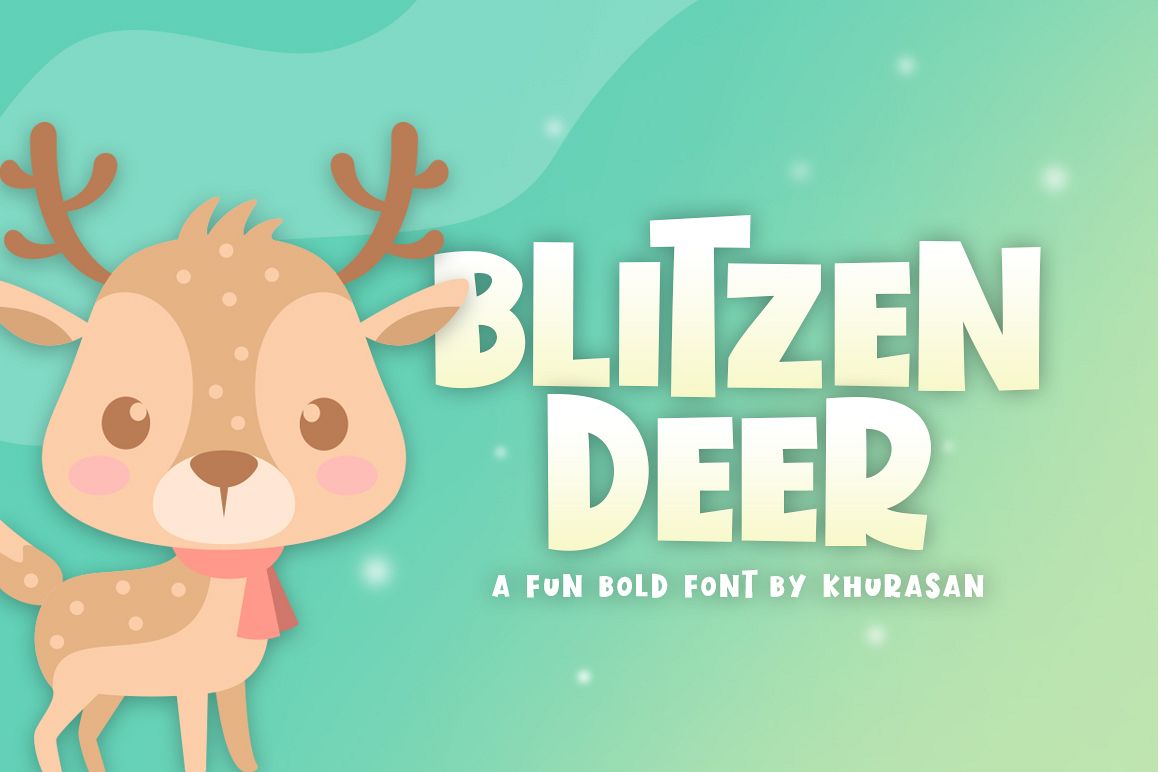
Introducing, Blitzen Deer font a fun bold display typeface with cheerful theme for your fun project. Blitzen Deer font suitable for logo, branding, greeting card, poster and any design that you create.